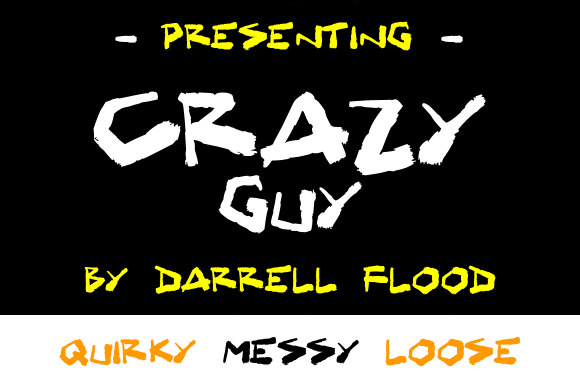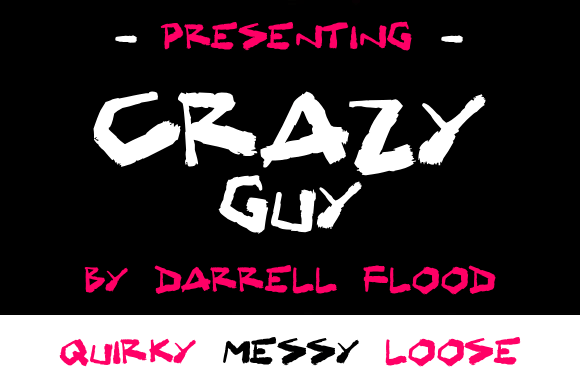
Crazy Guy Font: Unleash Your Creativity with this Quirky, Handmade Font
Are you tired of using the same old fonts for your design projects? Do you want to add a touch of personality and whimsy to your creations? Look no further than the Crazy Guy Font, a quirky, handmade font that’s perfect for weird themes, wall art, and general fun use!
What is Crazy Guy Font?
Crazy Guy Font is a unique, handcrafted font that’s designed to add a dash of excitement and energy to your designs. With its thick, dynamic, and angular style, this font is sure to grab attention and make your projects stand out from the crowd. Whether you’re a designer, crafter, or DIY enthusiast, Crazy Guy Font is the perfect tool to unleash your creativity and bring your ideas to life.
Key Features of Crazy Guy Font
- Quirky and Handmade: Crazy Guy Font is a one-of-a-kind font that’s been carefully crafted by hand to give it a unique, organic feel.
- Thick and Dynamic: With its bold, chunky lines and dynamic curves, Crazy Guy Font is perfect for creating eye-catching designs that demand attention.
- Angular Style: The font’s angular style gives it a edgy, modern look that’s perfect for weird themes, wall art, and other creative projects.
- Multipurpose: Crazy Guy Font is versatile and can be used for a wide range of projects, from posters and flyers to crafts and DIY projects.
Crazy Guy Font is a dream come true for designers and crafters who want to add a touch of personality to their projects. Whether you’re creating a bold poster, a quirky greeting card, or a unique piece of wall art, this font is sure to inspire your creativity and bring your ideas to life.
Ideas for Using Crazy Guy Font
- Weird Themes: Use Crazy Guy Font to create eye-catching posters, flyers, and brochures for weird and wacky themes, such as Halloween parties, sci-fi conventions, or music festivals.
- Wall Art: Create unique and quirky pieces of wall art using Crazy Guy Font, perfect for decorating your home, office, or studio.
- Crafts and DIY Projects: Add a touch of personality to your crafts and DIY projects, such as handmade cards, gift tags, or scrapbook pages.
- Social Media Graphics: Use Crazy Guy Font to create bold and eye-catching social media graphics, perfect for grabbing attention and driving engagement.
Tips for Using Crazy Guy Font
- Experiment with Colors: Try pairing Crazy Guy Font with bold, bright colors to really make your designs pop.
- Mix and Match: Combine Crazy Guy Font with other fonts and textures to create unique and interesting visual effects.
- Keep it Simple: Don’t be afraid to keep your design simple and let Crazy Guy Font be the star of the show.
Crazy Guy Font is a unique and versatile font that’s perfect for designers, crafters, and DIY enthusiasts who want to add a touch of personality and whimsy to their projects. With its quirky, handmade style and thick, dynamic, angular lines, this font is sure to inspire your creativity and bring your ideas to life. So why wait? Download Crazy Guy Font today and start creating!